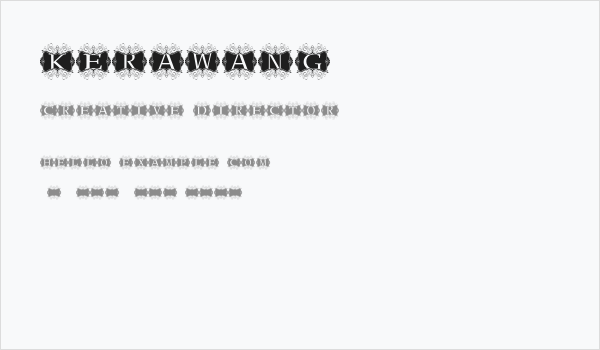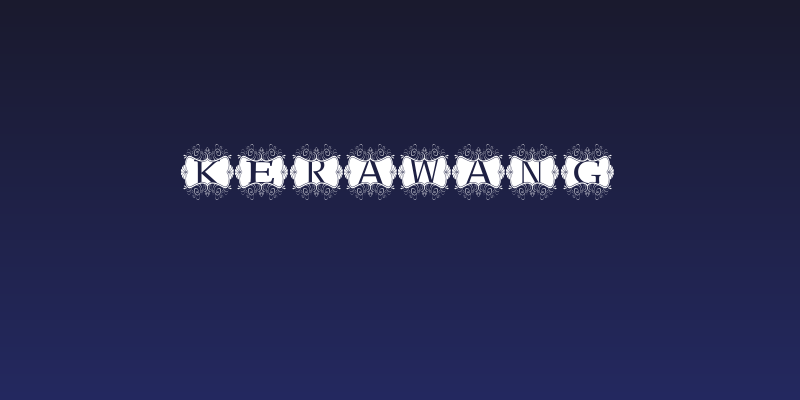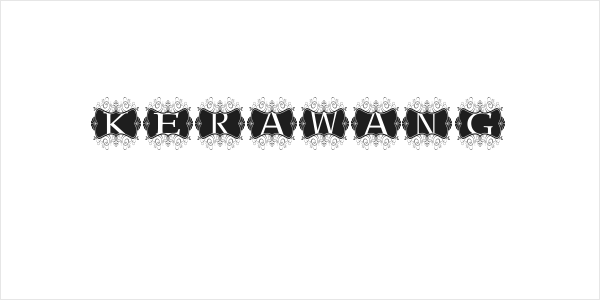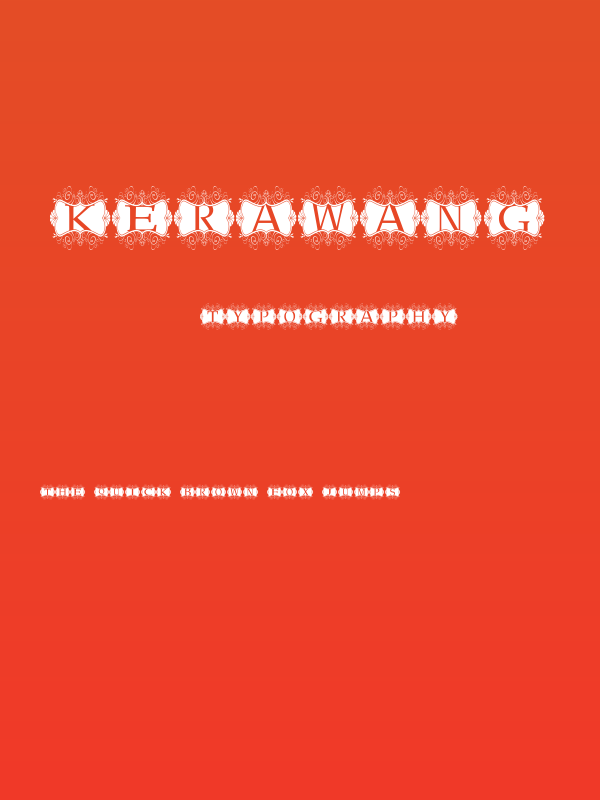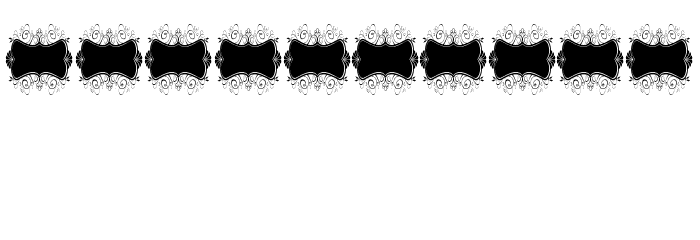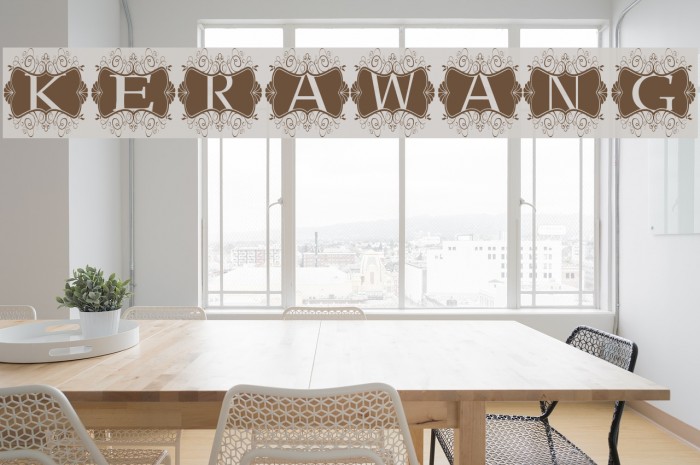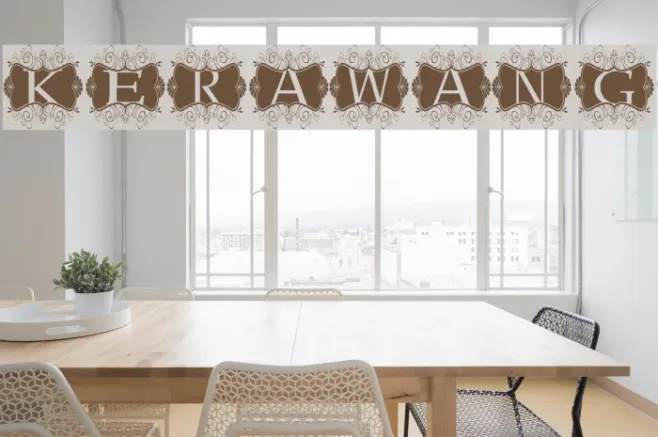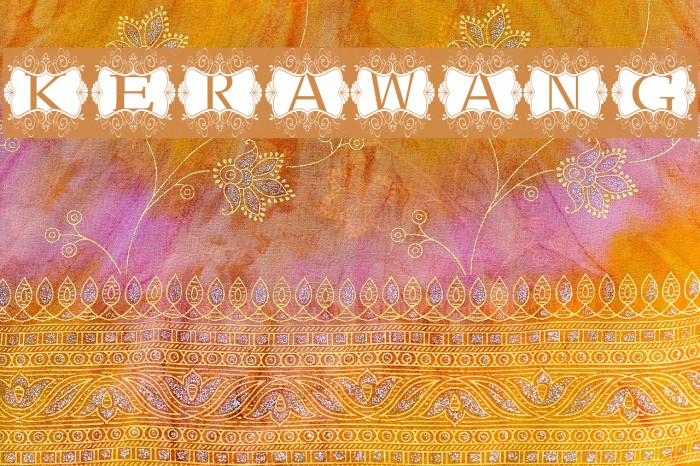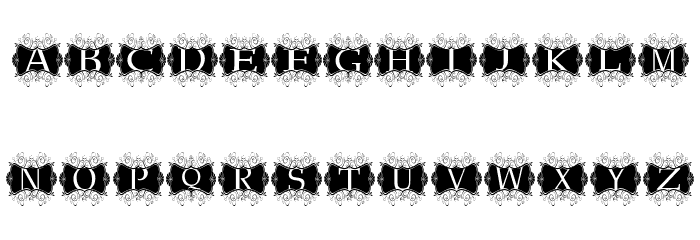
Kerawang Font
Kerawang Description
This font is a highly decorative and ornate typeface, characterized by its intricate flourishes and embellishments surrounding each letter. The design features bold, uppercase letters that are encased in elaborate frames, giving it a regal and sophisticated appearance. The embellishments are symmetrical and intricate, adding a touch of elegance and complexity to the overall look. This font is ideal for projects that require a luxurious and vintage aesthetic, such as invitations, certificates, or branding for high-end products. Its unique style makes it stand out, providing a sense of grandeur and opulence.
| Overall Style | Vintage |
| Use Case | Headlines, Logos, Invitations |
| Proposed Projects | Ideal for luxury branding, wedding invitations, certificates, and decorative headlines. |